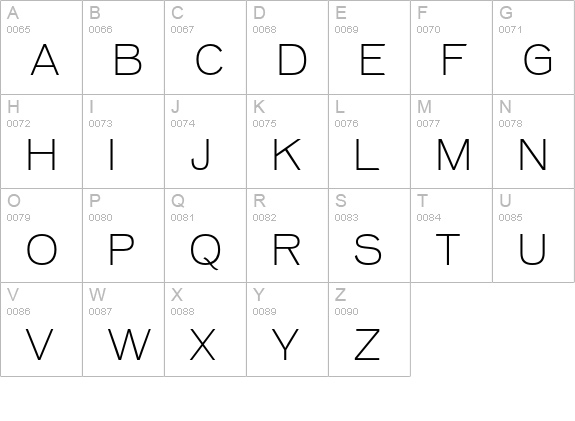
Vonnes-Light is a refined, elegant variant in the Vonnes typeface family \xE2\x80\x94 well suited to elegant body text, refined sub-headings, and luxury branding.
Vonnes-Light is a stunning and elegant font that exudes sophistication and grace. Its slender and refined letterforms make it perfect for adding a touch of class to any design project. With its delicate strokes and smooth curves, Vonnes-Light captures attention and creates a sense of effortless beauty. This font is not only visually appealing but also versatile, making it suitable for a wide range of applications. Whether you're designing wedding invitations, branding materials, or editorial layouts, Vonnes-Light will elevate your work to new heights. One of the best things about Vonnes-Light is that it is free. Yes, you read that right - this exceptional font can be downloaded and used at absolutely no cost. FontsMarket.com proudly offers Vonnes-Light as a freely available font for designers and enthusiasts alike. Downloading Vonnes-Light from FontsMarket.com is quick and easy. Simply visit the website and access the font's page. From there, you can download the font file and start using it in your projects right away. This accessibility adds to the overall appeal of Vonnes-Light, as it allows everyone to enjoy its beauty and versatility without any limitations. So, if you're looking for a font that combines elegance, versatility, and affordability, look no further than Vonnes-Light. Download it today from FontsMarket.com and let this exquisite typeface elevate your designs to a whole new level of excellence.